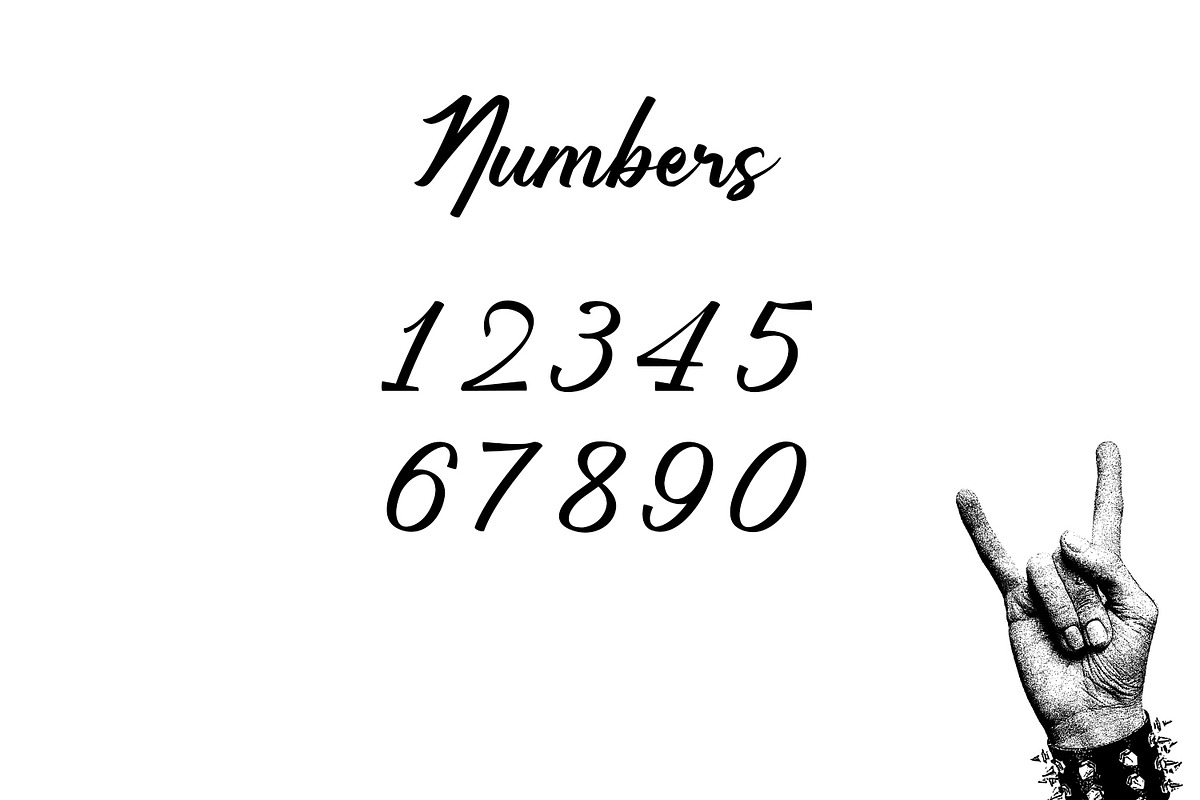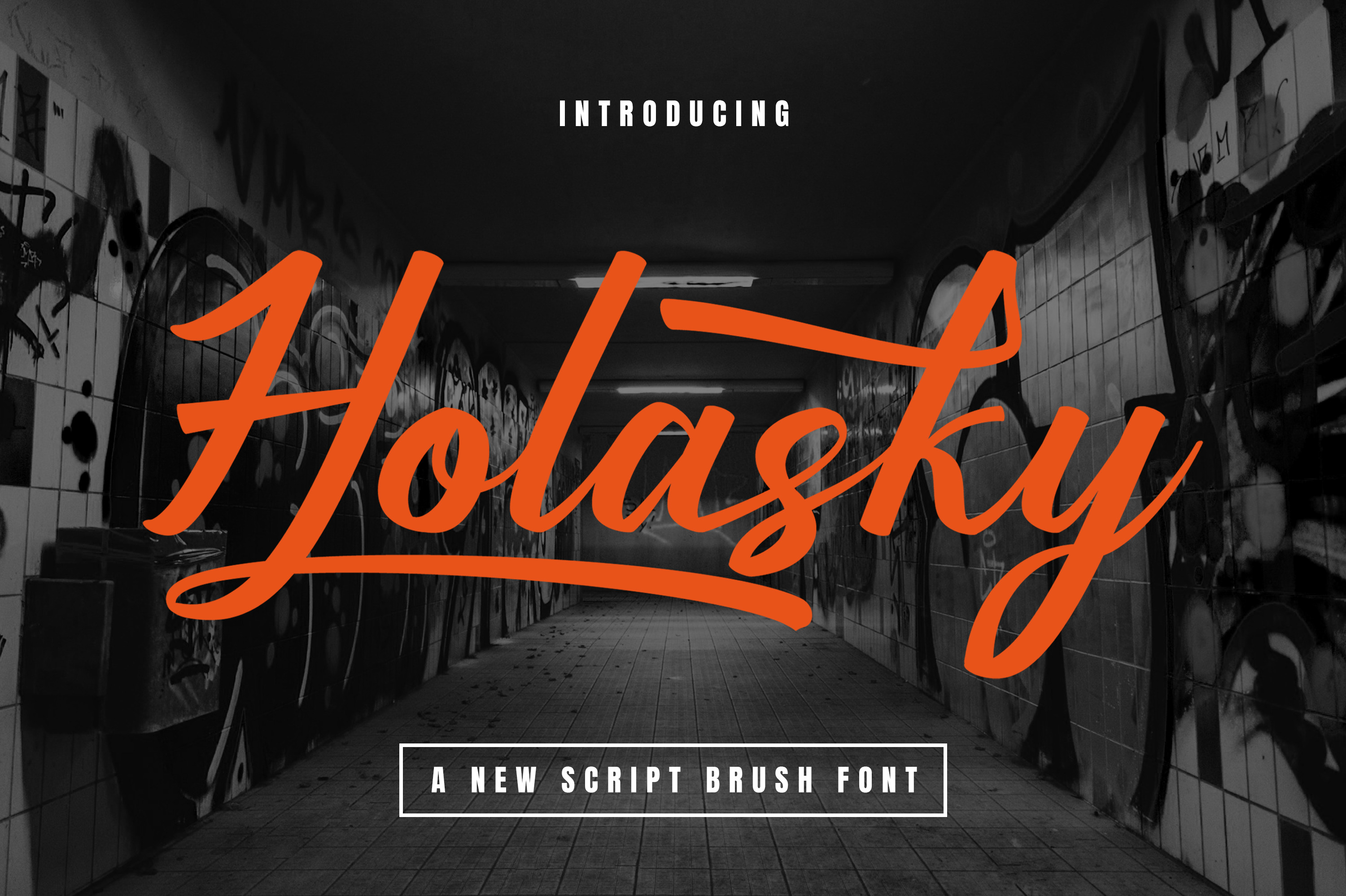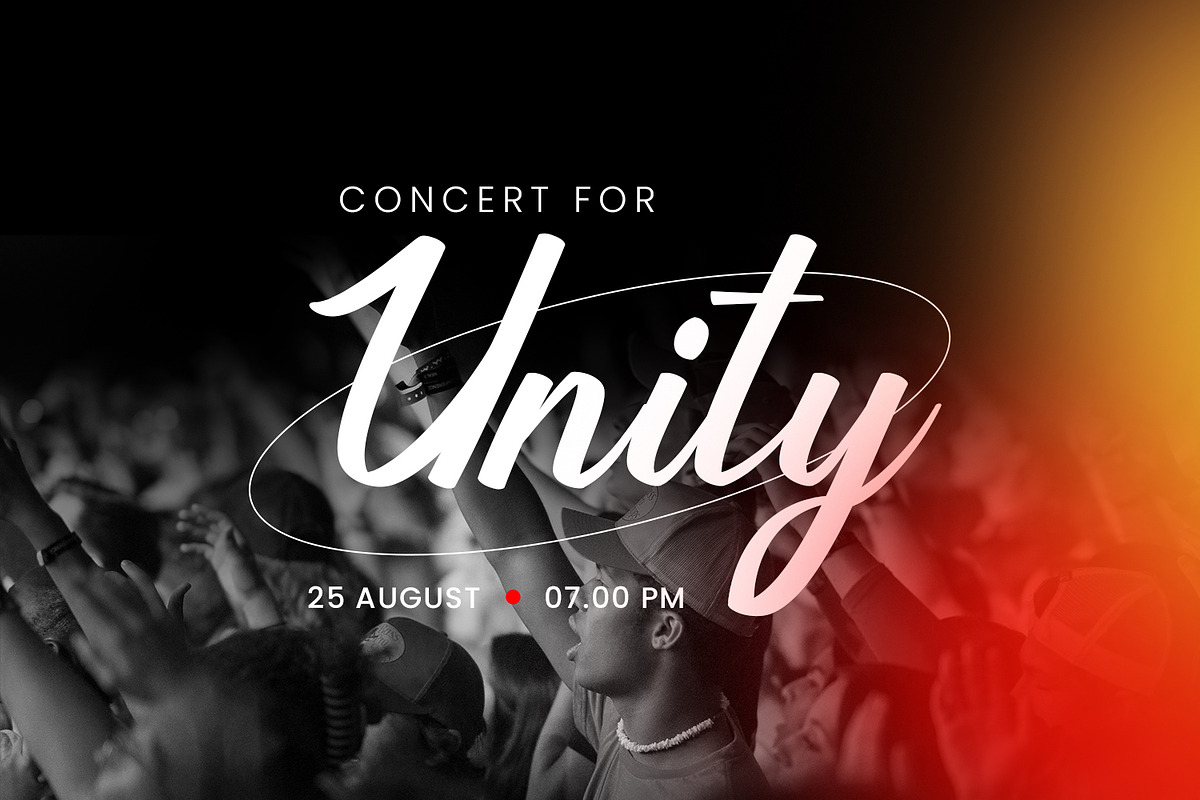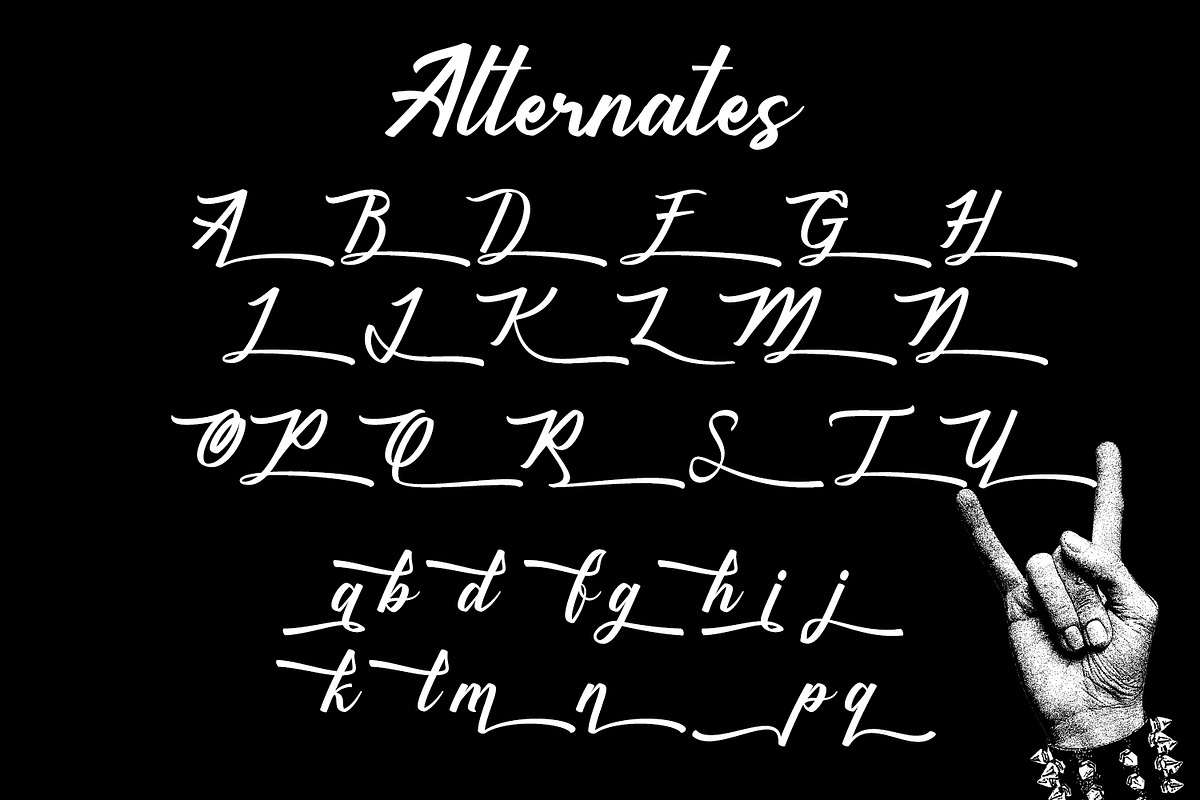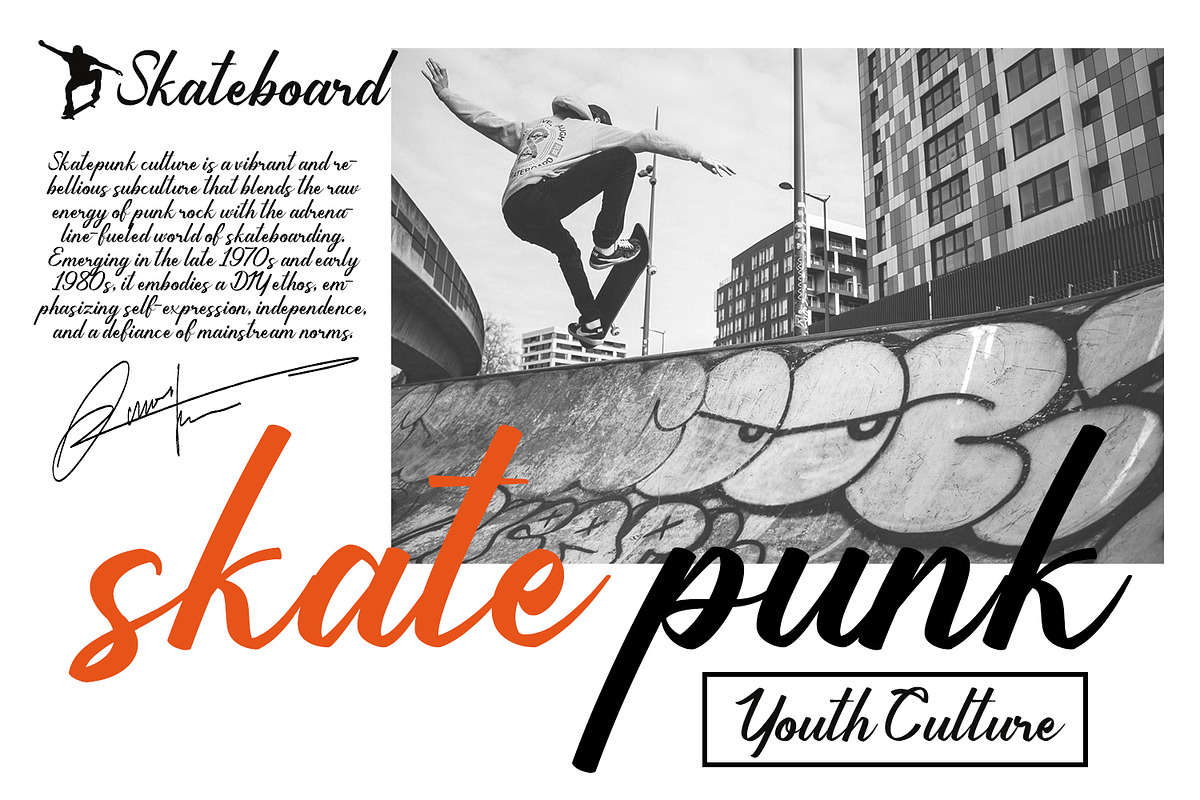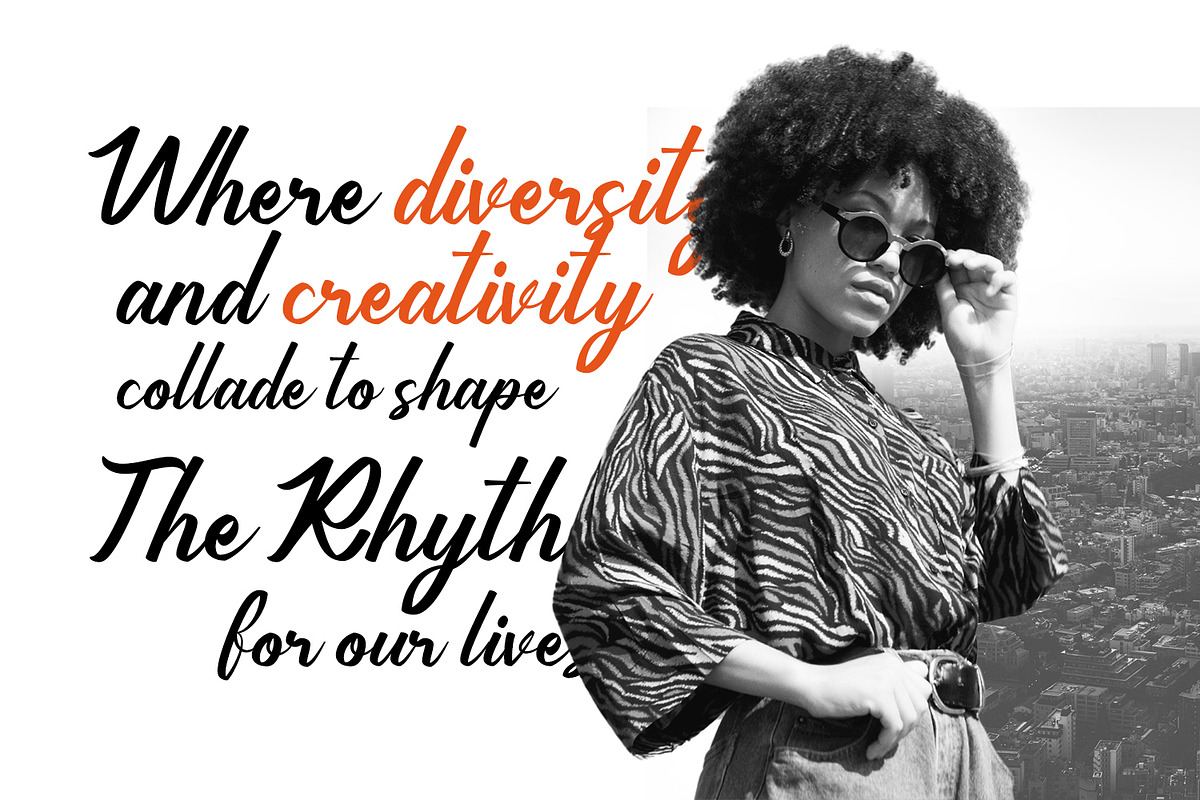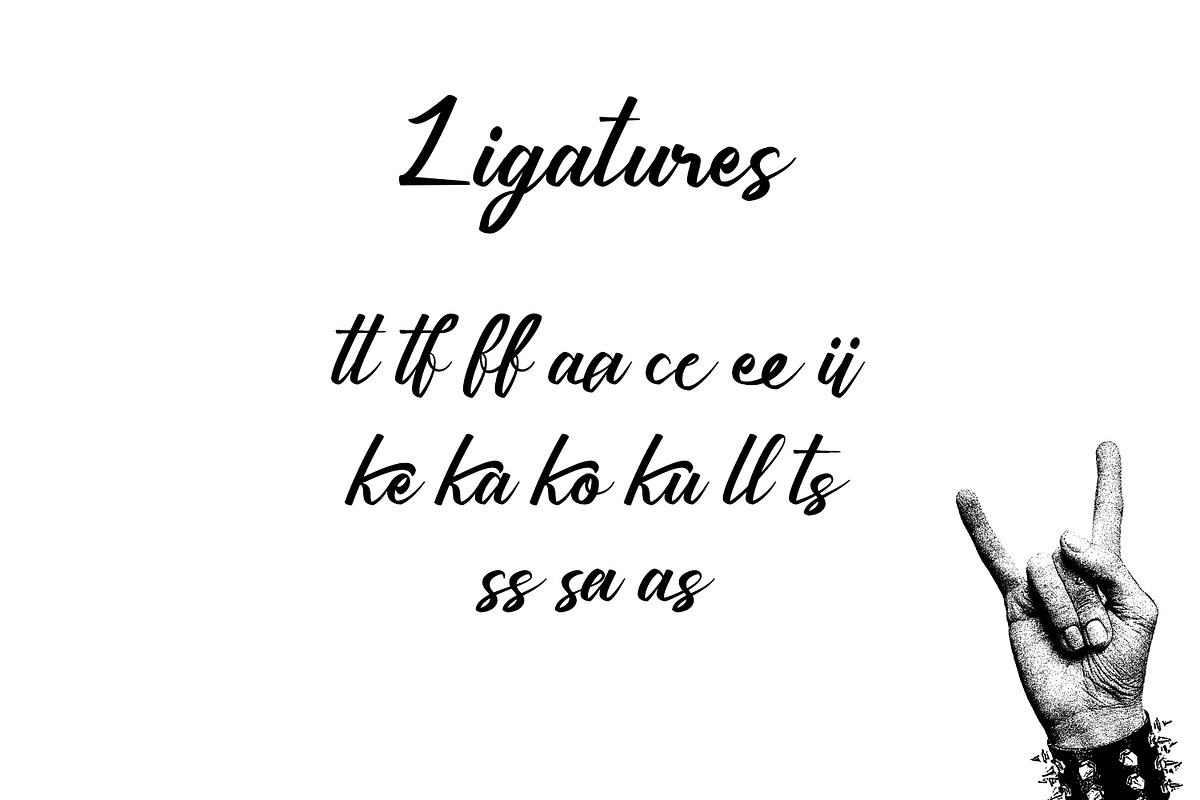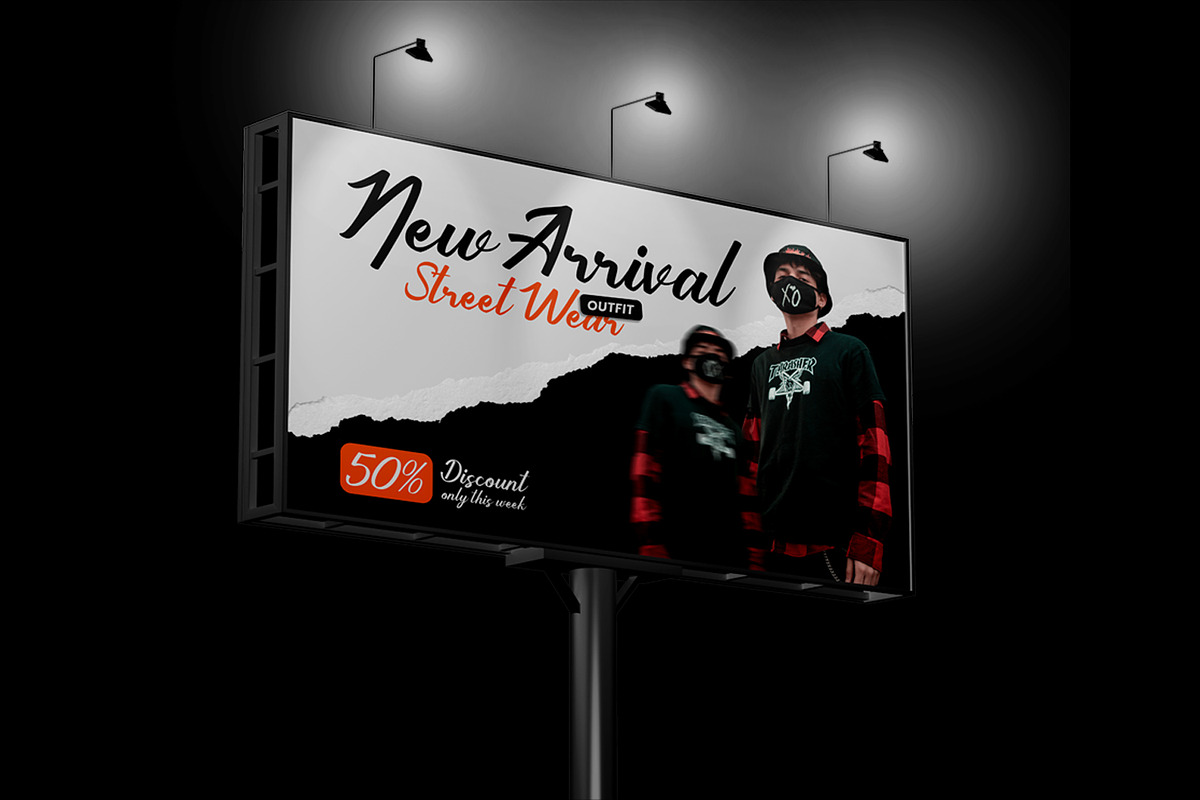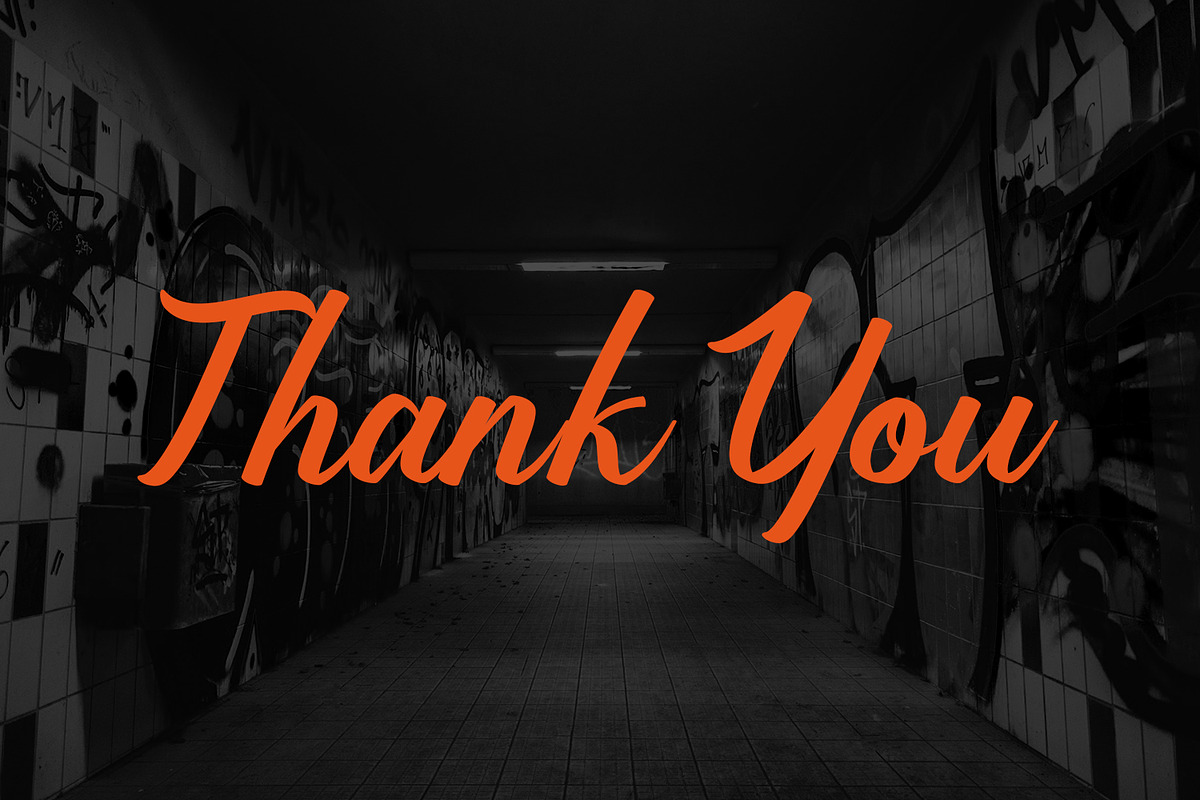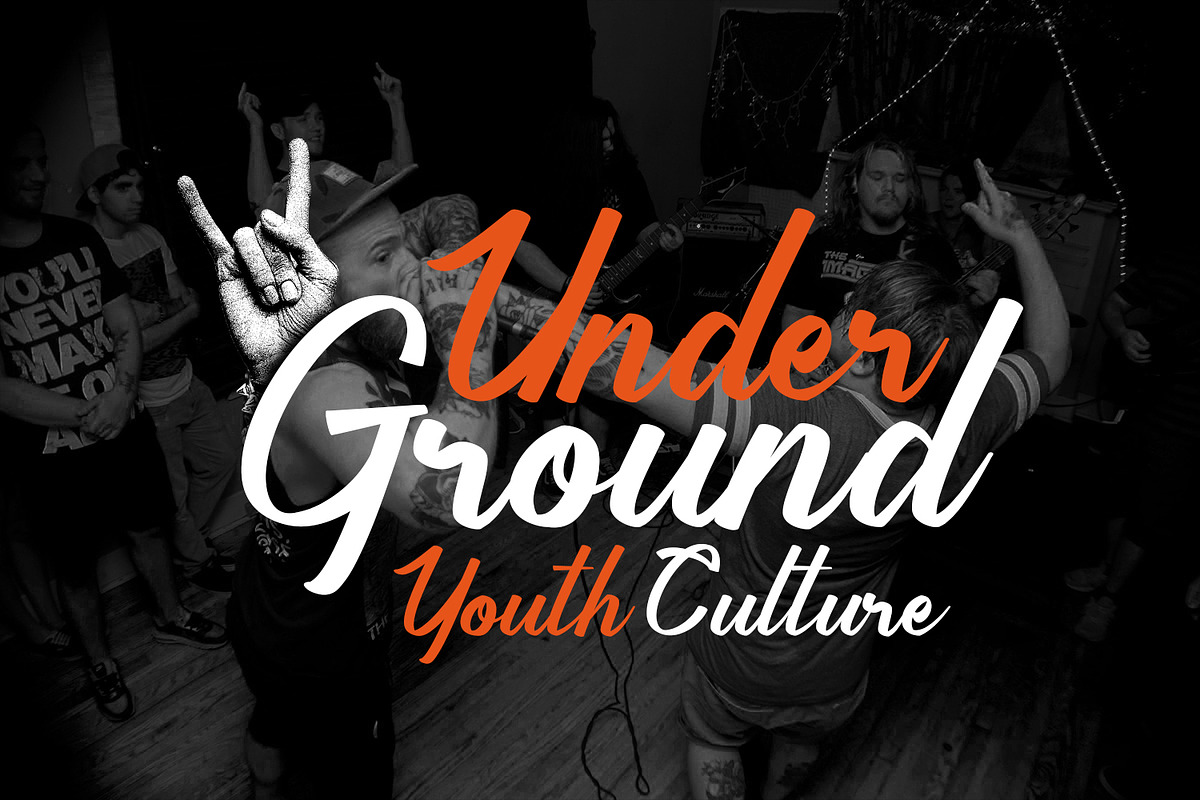
Holasky - Modern Script Font
Holasky - Modern Script Font, from Favowrite Studios, is a premium Font, perfect for any project that requires a distinctive, and premium feel.
- Ligature, Alternate & amp; Multilingu